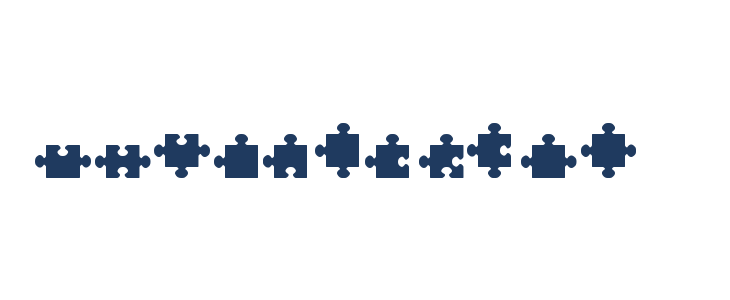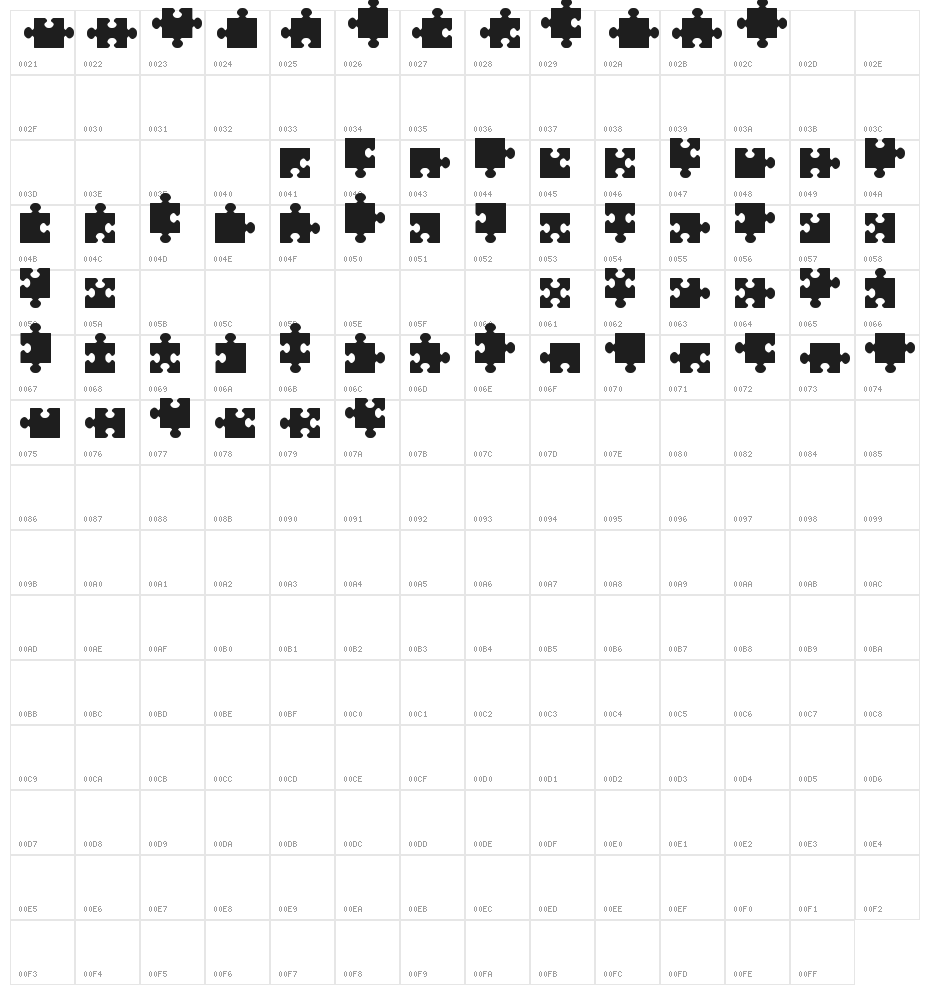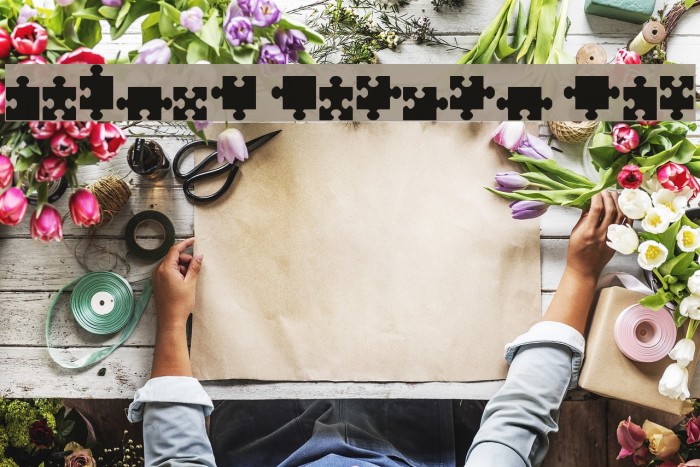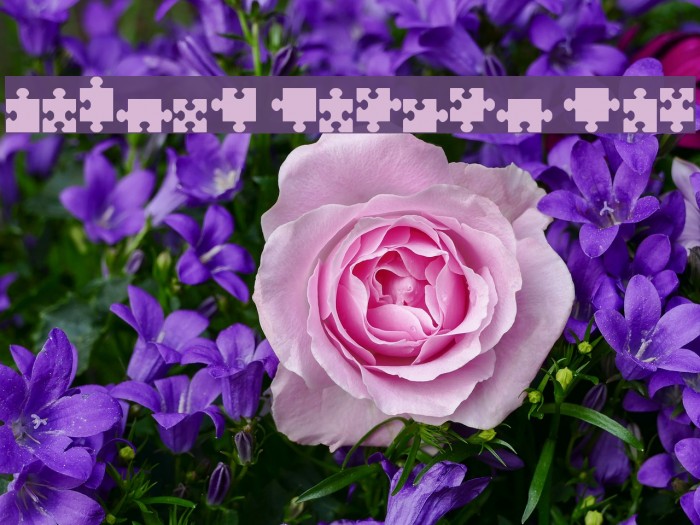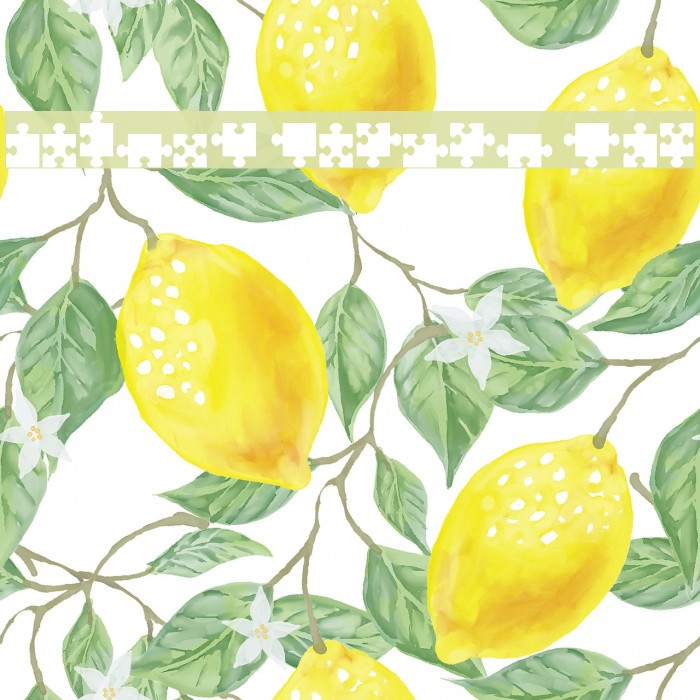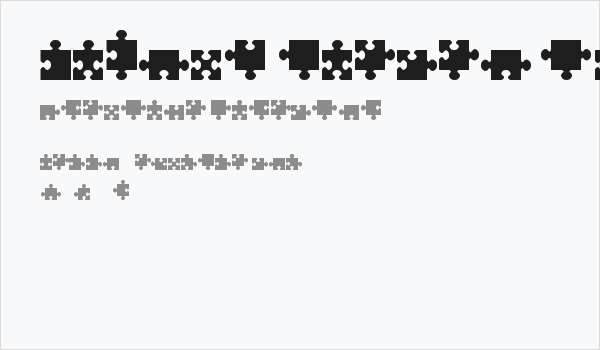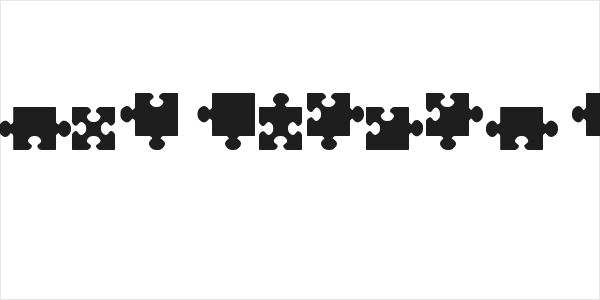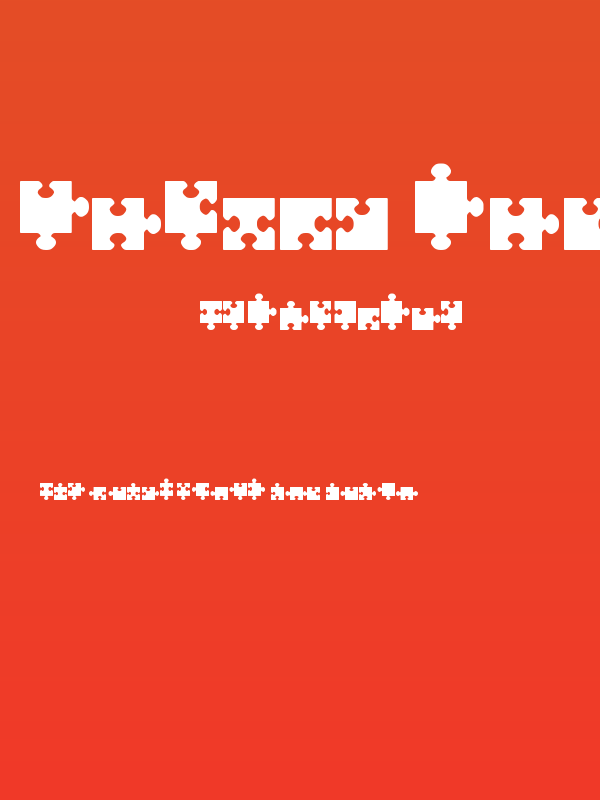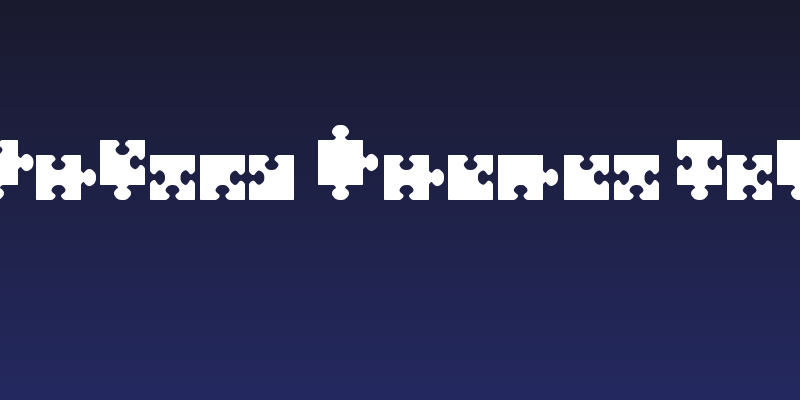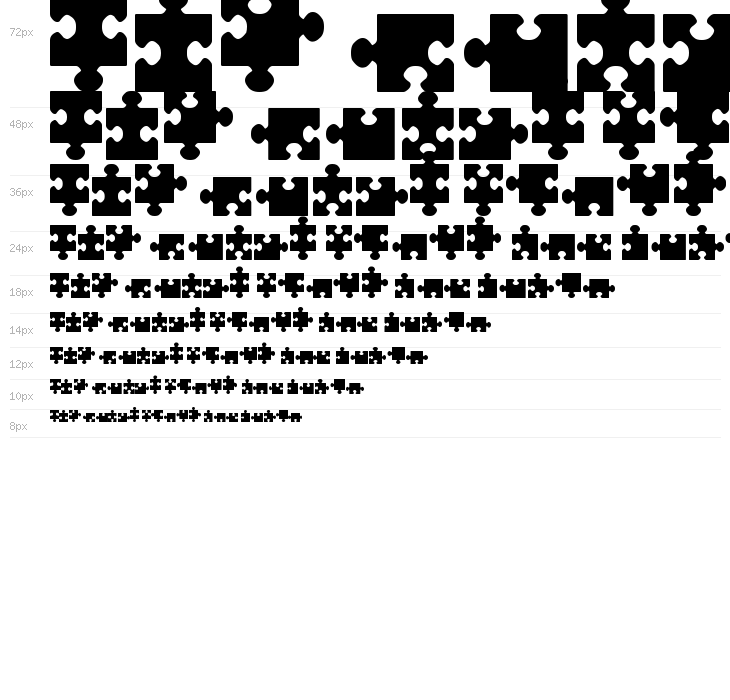
jigsaw pieces tfb Font
jigsaw pieces tfb Description
This design features a playful and creative arrangement of jigsaw puzzle pieces, each piece representing a character or symbol. The pieces are interconnected, forming a continuous line that mimics the appearance of a puzzle being assembled. The bold, solid black shapes create a striking visual impact, making it ideal for decorative purposes. The unique style of this design makes it stand out, offering a whimsical and engaging aesthetic that captures attention.
| Use Case | Logos, Decorative headings, Creative projects |
| Proposed Projects | Ideal for children's book covers, educational materials, playful branding, and creative posters. |